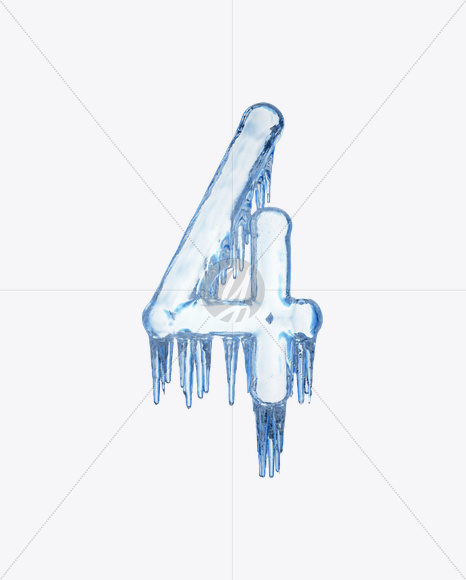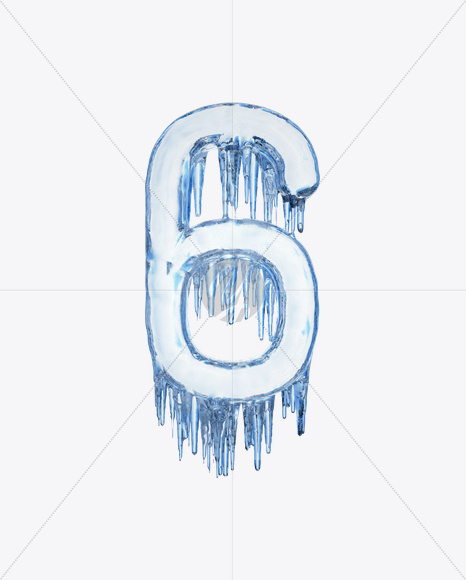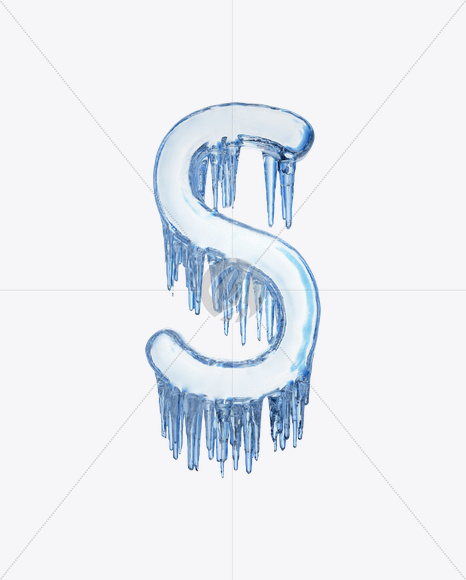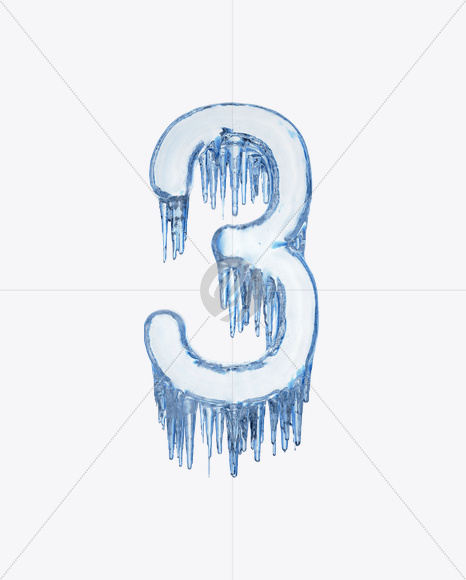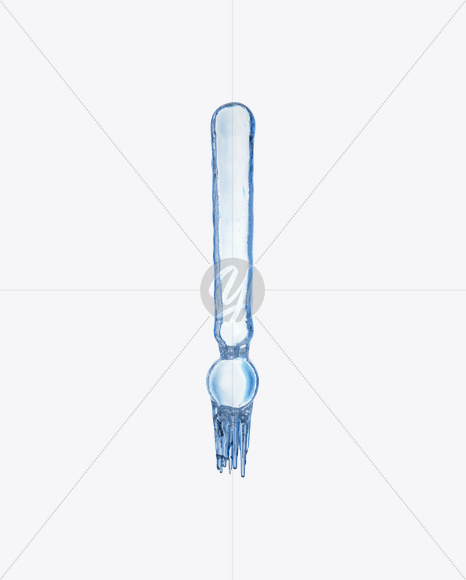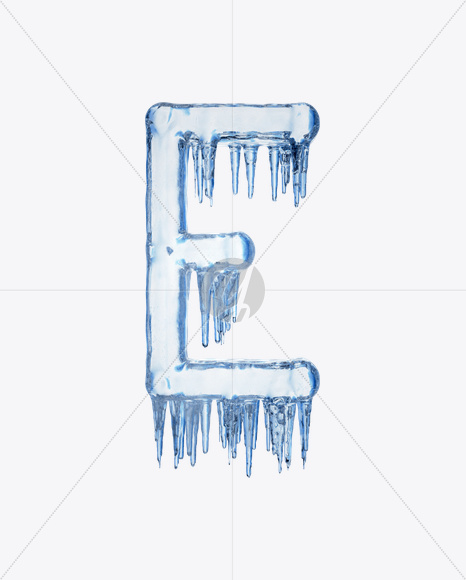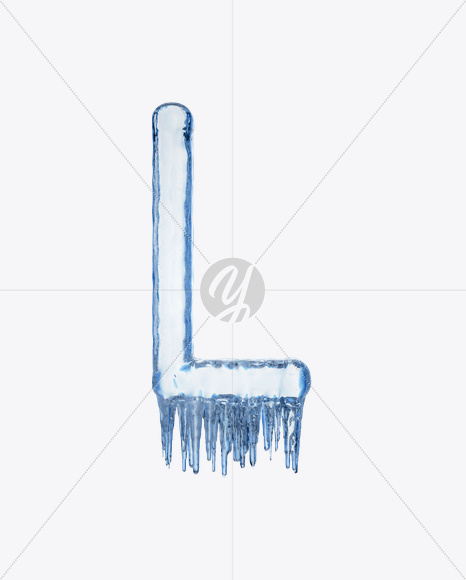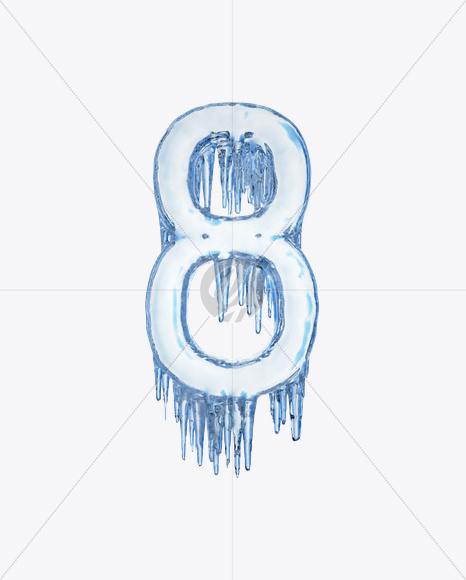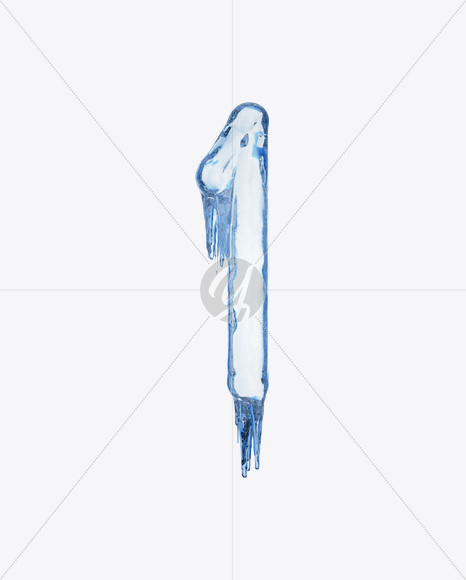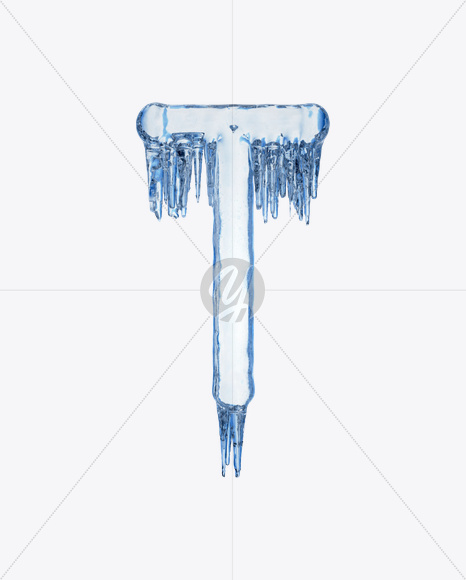
Welcome the new springtime season with fonts that we made specifically for this occasion. While the sun is shining warmer and days are becoming longer and brighter, everything is awakening from the winter sleep. This is a very fruitful period for inspiration because spring is a perfect time to start over and to revive emotions. Such a cool font like Ice Melt Font will help designers to wake their artistic instincts up.